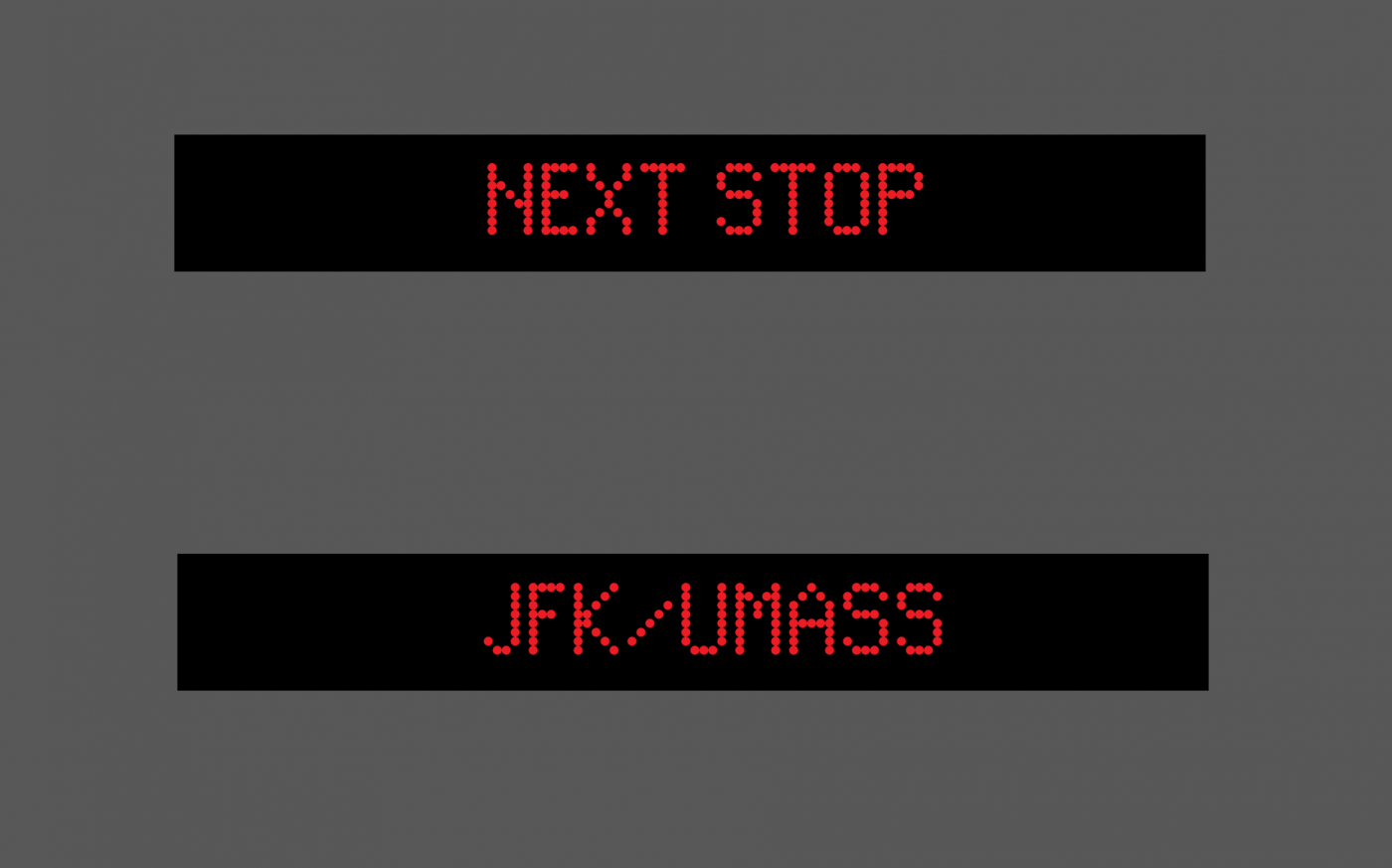
• Missing some punctuation, also Z, V and the numbers might be inaccurate since I haven't seen them on any interior display boards on the 1800s series.
USE CAPITAL LETTERS WHEN TYPING WITH THIS FONT, LOWERCASE LETTERS ARE NOT SUPPORTED!
MBTA 1800 Series (Red Line)by ThatFontCreator